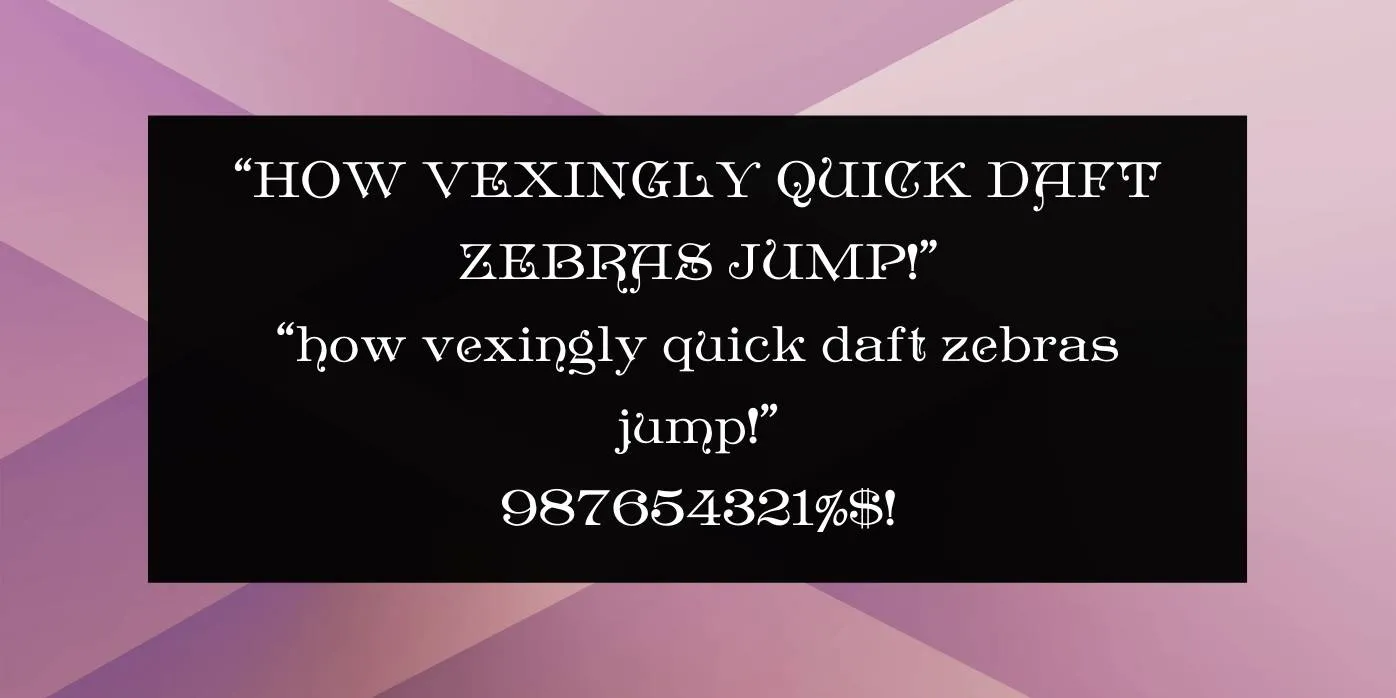
Sailor Moon Font belongs to the fancy category and was designed by Tadano Kazuko. it is a lovely and cute typeface that has wavy stroke characters which are perfect for posters, banners, flyers, and titles. This typeface was encouraged by the Japanese manga series “Sailor Moon”.
Sailor Moon is a Japanese Shojo manga series that is written by Naoko Takeuchi and released by Nakayoshi Magazine in 1991-1997. Its logo is a combination of three different typefaces, those are Shadee Font, Wish MF Font, and Hardly Worth IT Font.
Benefits of Using Sailor Moon Font for Digital Design
This logotype font is very fit for any type of logo, poster, book cover, video game design, stencil, symbol, sticker, webpages design, welcome card, game graphics, T-shirt, app design, fashion, branding, homeware products, demonstrated designs, booklet designs, catalog, pamphlet, product packaging, and so on.
You can also apply it to your gorgeous captions, titles, tags, headlines, and names as well as quotes, reports, statements, explanations, PowerPoint presentations, hotel names, and many other things. This typeface is the best for simple and large-size paragraphs.
The Structure of Sailor Moon Font
What is a font Sailor Moon Font?
This typeface belongs to the display category and was designed by Tadano Kazuko. it is a lovely and cute typeface that has wavy stroke characters which are perfect for posters, banners, flyers, and titles.
Is Sailor Moon Font a good one?
This typeface design is a perfect option for long-size paragraphs and headlines and titles, it is convenient for those project that needs a cute and curly appearance.